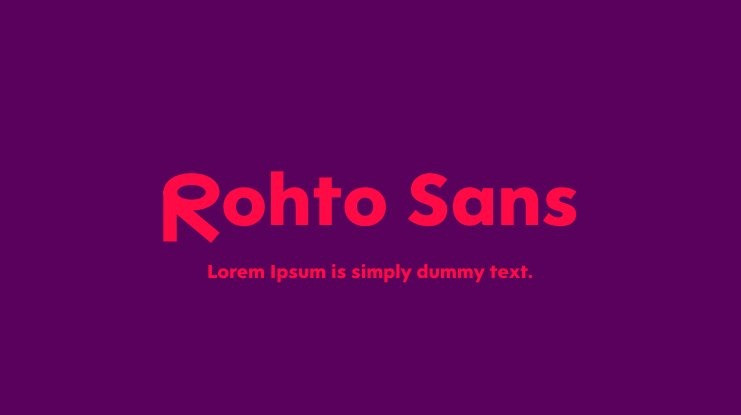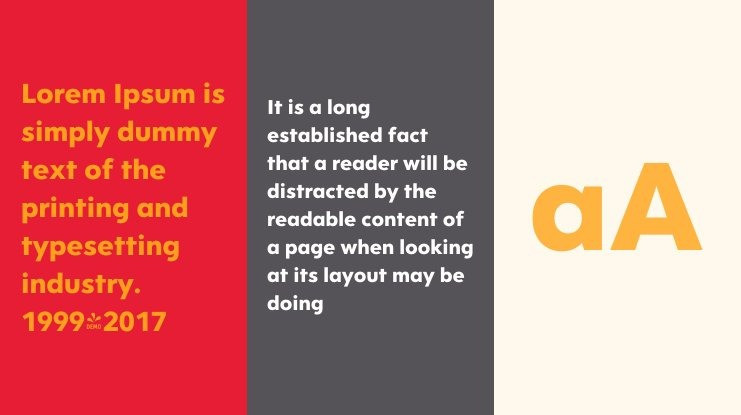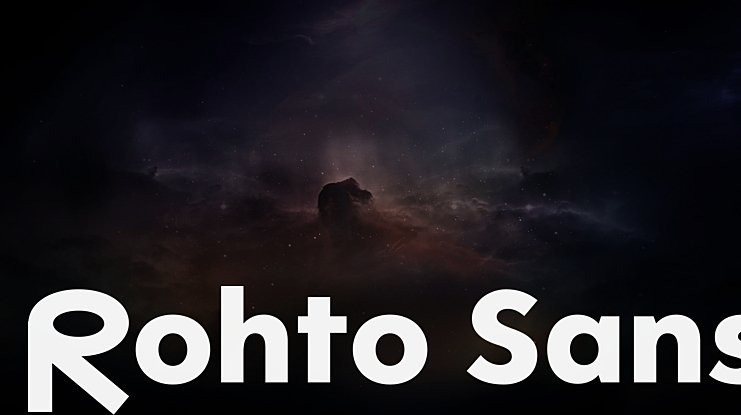
Rohto Sans Font, This bundle features strong, confident and powerful typefaces designed to work great with sports logos, club branding, apparel applications, labels and more.
Rohto Sans Font
| Designer Name: | Brandon Knap |
| Classification: | Sans Serif Fonts, Style / Aesthetic Fonts |